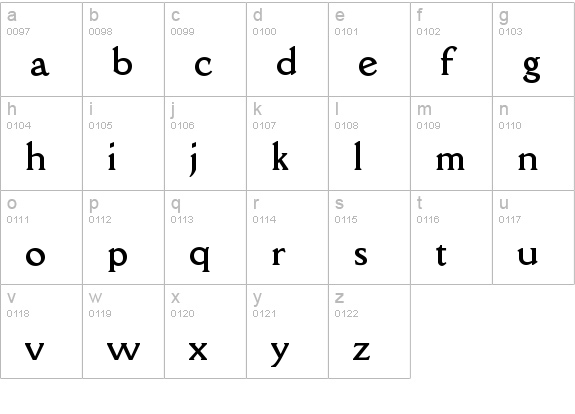
Della Robbia Bold is a strong, high-contrast variant in the Della typeface family \xE2\x80\x94 well suited to headlines, attention-grabbing titles, and strong calls-to-action.
Della Robbia Bold is a stunning and elegant font that exudes sophistication and style. With its bold and impactful presence, this typeface is perfect for making a statement and capturing attention. The clean lines and intricate details of Della Robbia Bold add a touch of class to any design project, whether it be for branding, advertising, or editorial purposes. What makes Della Robbia Bold even more appealing is that it is available for free download at FontsMarket.com. This means you can easily access this beautiful font and incorporate it into your creative work without any hassle. Don't miss out on the opportunity to enhance your designs with the timeless beauty of Della Robbia Bold - download it now and take your projects to the next level!